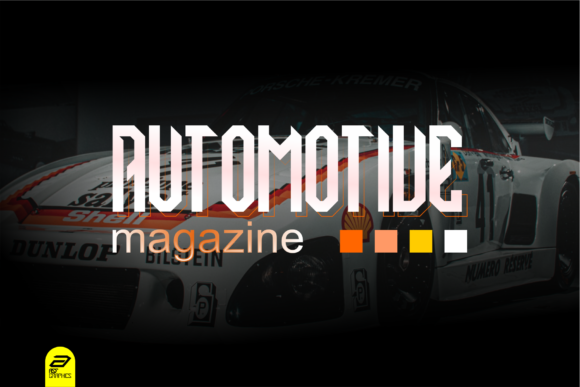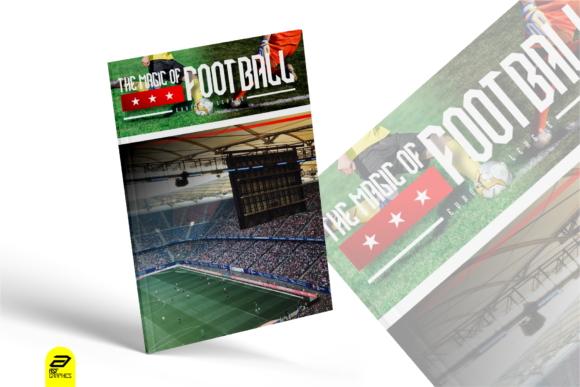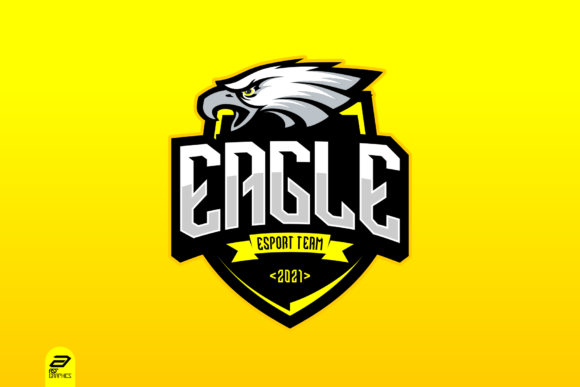
Introduction to Phanter Black Font
Phanter Black is a cool and bold display font.
This font is imposing and features uniquely shaped letters, and as a result, it will easily match a wide range of creations that require a distinct touch .
Key Features of Phanter Black Font